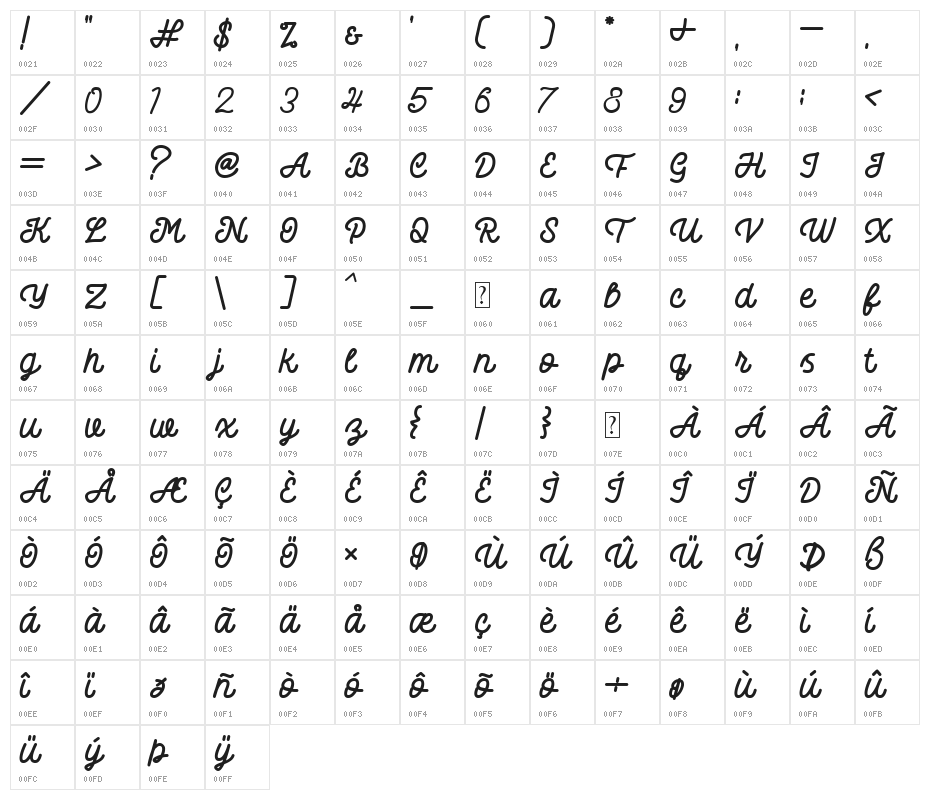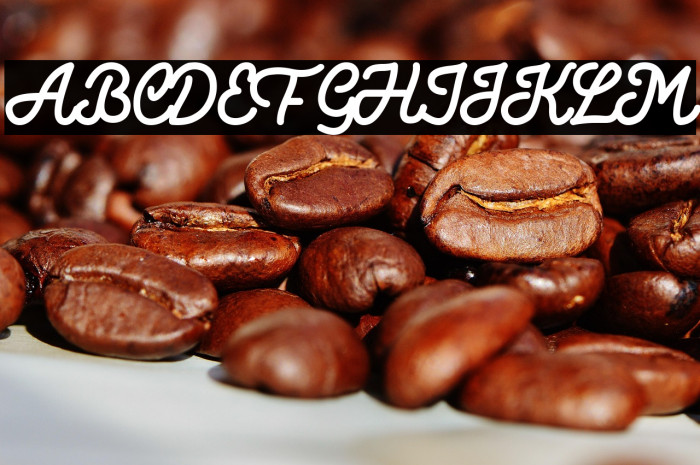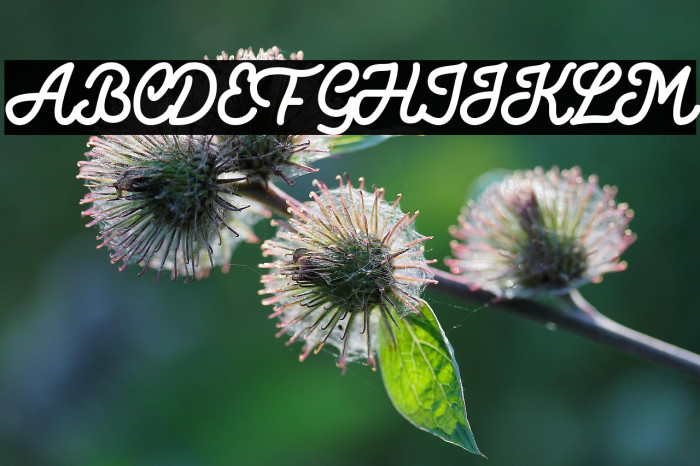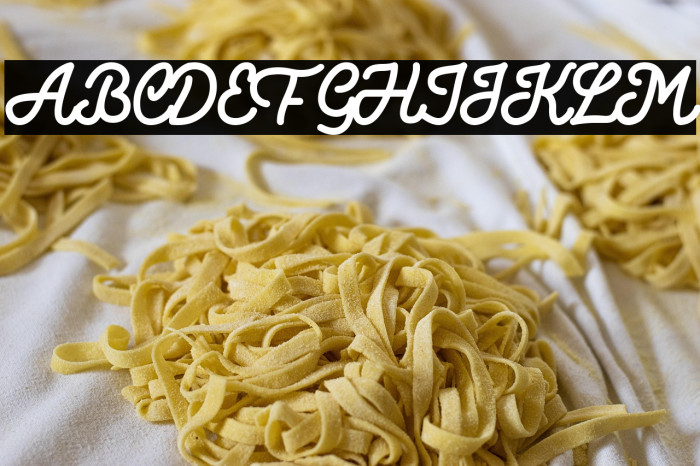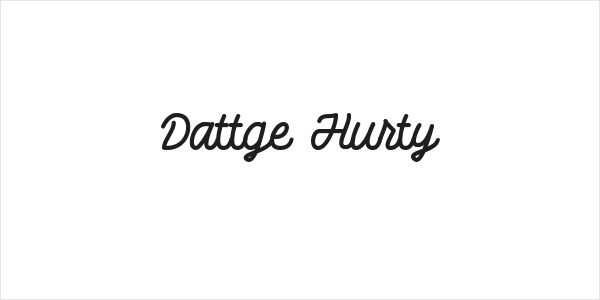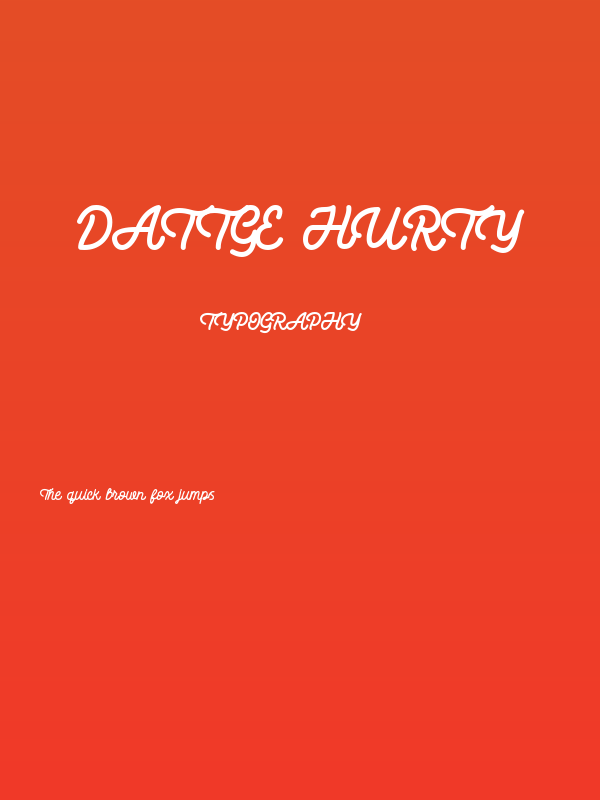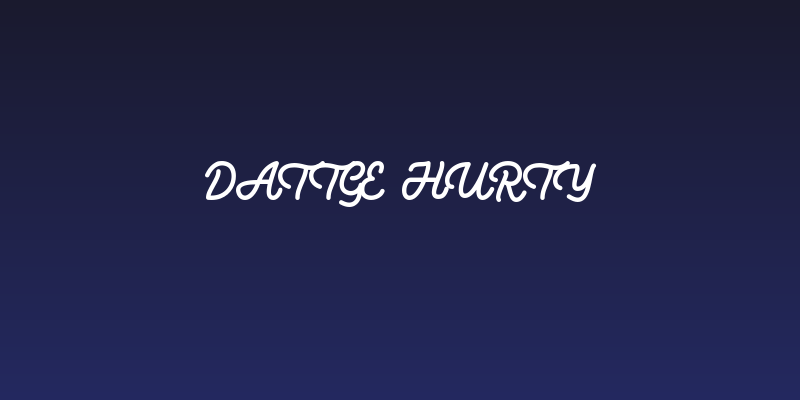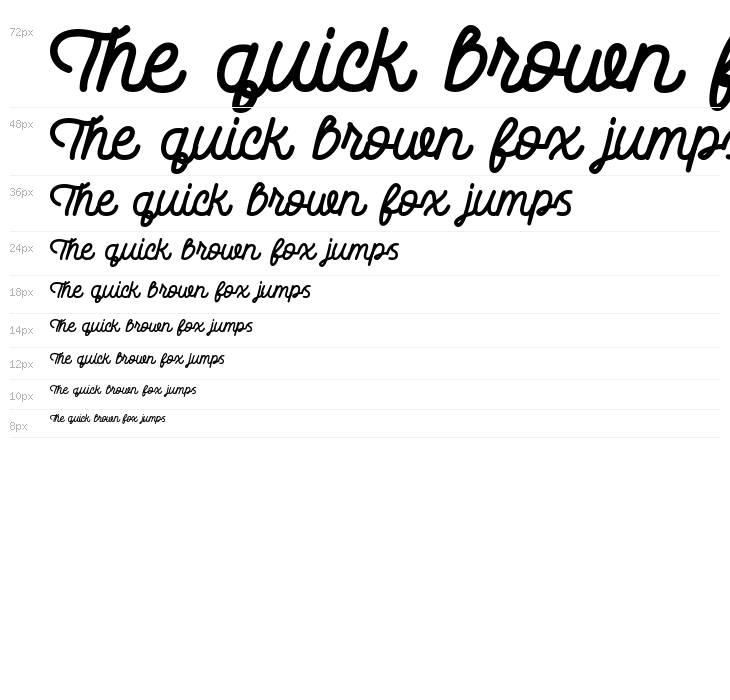
Dattge Hurty Font
Dattge Hurty Description
This font features a playful and fluid script style, characterized by its smooth, continuous strokes and rounded edges. The uppercase letters are bold and slightly slanted, giving a sense of movement and elegance. The lowercase letters maintain a consistent flow, with some characters connecting seamlessly to the next. The numerals are clear and easy to read, matching the overall cursive aesthetic. Special characters are creatively integrated, maintaining the font's cohesive style. This font exudes a friendly and approachable vibe, making it suitable for a variety of creative applications.